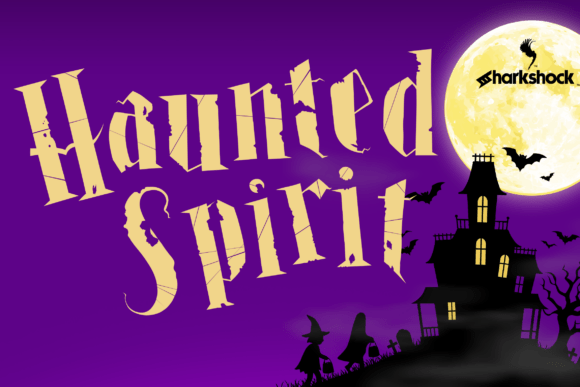
Unleashing the Spooky Charm of Your Designs
As the witching hour approaches, designers and creatives are always on the lookout for a way to add some spooky flair to their projects. Have you ever stared at a blank page, struggling to conjure up the perfect font to capture the essence of Halloween? That’s when the Haunted Spirit Font comes to the rescue – a mesmerizing display font that will transport your audience to a world of eerie wonder.
With its unique blend of asymmetrical strokes and jagged lines, the Haunted Spirit Font is the perfect addition to any Halloween-themed project. Whether you’re designing a party invite, a movie poster, or a witch-themed book, this font will add a touch of whimsical character that’s sure to leave a lasting impression. Its versatility and OTF programming make it a valuable asset for designers, allowing you to experiment with different levels of distress and alternates to create a truly one-of-a-kind look.
Key Features of Haunted Spirit Font
- Unique Characteristics: Distressed, haunted, and eerie font style with irregular letterforms and subtle texture effects
Haunted Spirit Font Review
Overall, I’d say the Haunted Spirit Font is an interesting and unique addition to any design project. It’s got a lot of character and can add a spooky or mysterious vibe to your work. ✨ The bold, gothic-inspired design is sure to grab attention and make your text stand out.
- ✨ The bold, dramatic feel of the font is perfect for titles, headings, and other emphasis.
- ✨ The font’s irregularities and imperfections give it a hand-crafted feel that’s hard to replicate with more traditional fonts.
- ✨ The Haunted Spirit Font is highly customizable, with a range of weights and styles to choose from.
- ⚠️ The font may be a bit too over-the-top for more straightforward or professional designs.
- ⚠️ Some characters may not be as clearly legible as others, particularly at smaller font sizes.
- ⚠️ The font’s irregularities can make it difficult to use in certain situations, such as when precise alignment is required.
Overall, the Haunted Spirit Font is a great choice for designers looking to add a touch of the unknown to their work. Just be aware of its limitations and use it judiciously to get the best results.
For best results, use the font in a spooky or eerie design, such as a Halloween-themed poster or a haunted house invitation.
3. Use the font in a design that requires a mysterious or supernatural feel, such as a horror movie poster or a paranormal-themed illustration.
3. Use the font in a presentation or document that requires a spooky or eerie tone, such as a Halloween-themed presentation or a haunted house brochure.
Tips for Getting the Most Out of the Haunted Spirit Font
Use the font in bold or italic styles to add emphasis and create a sense of drama.
Pair the font with other spooky or eerie fonts to create a unique and captivating design.
Experiment with different font sizes and colors to create a sense of atmosphere and mood.